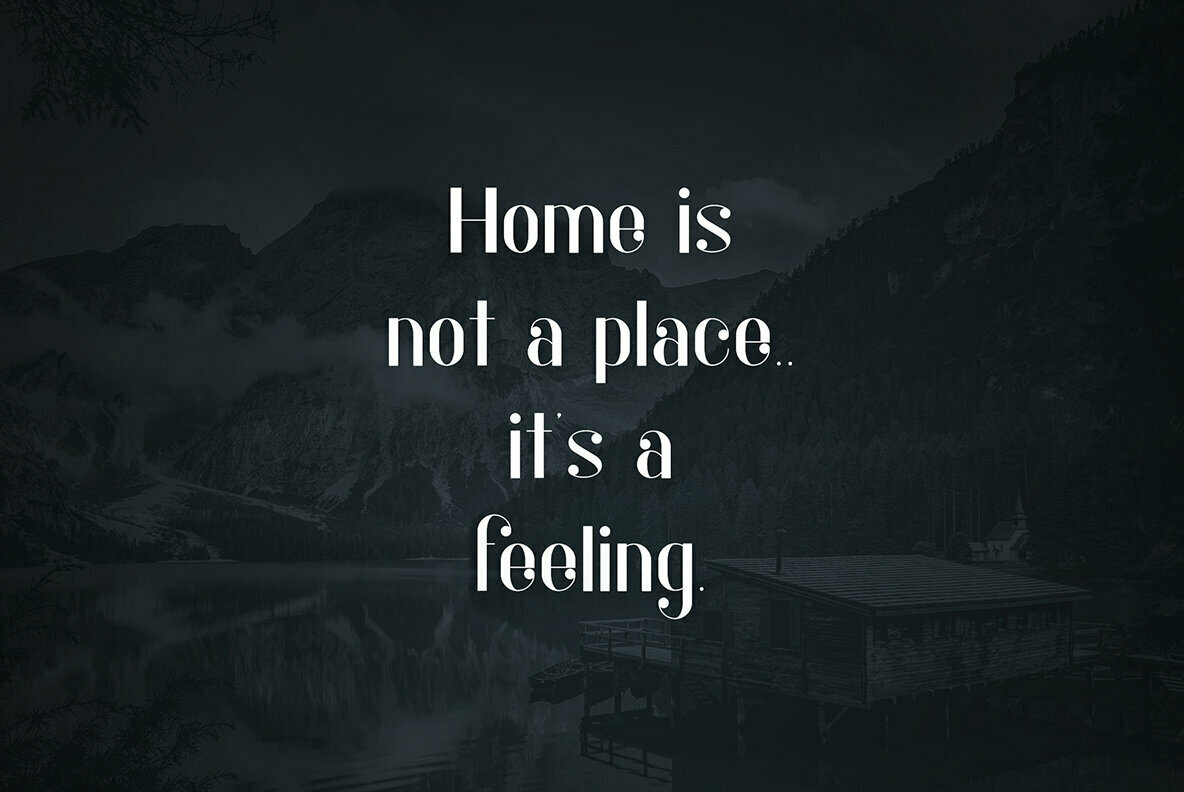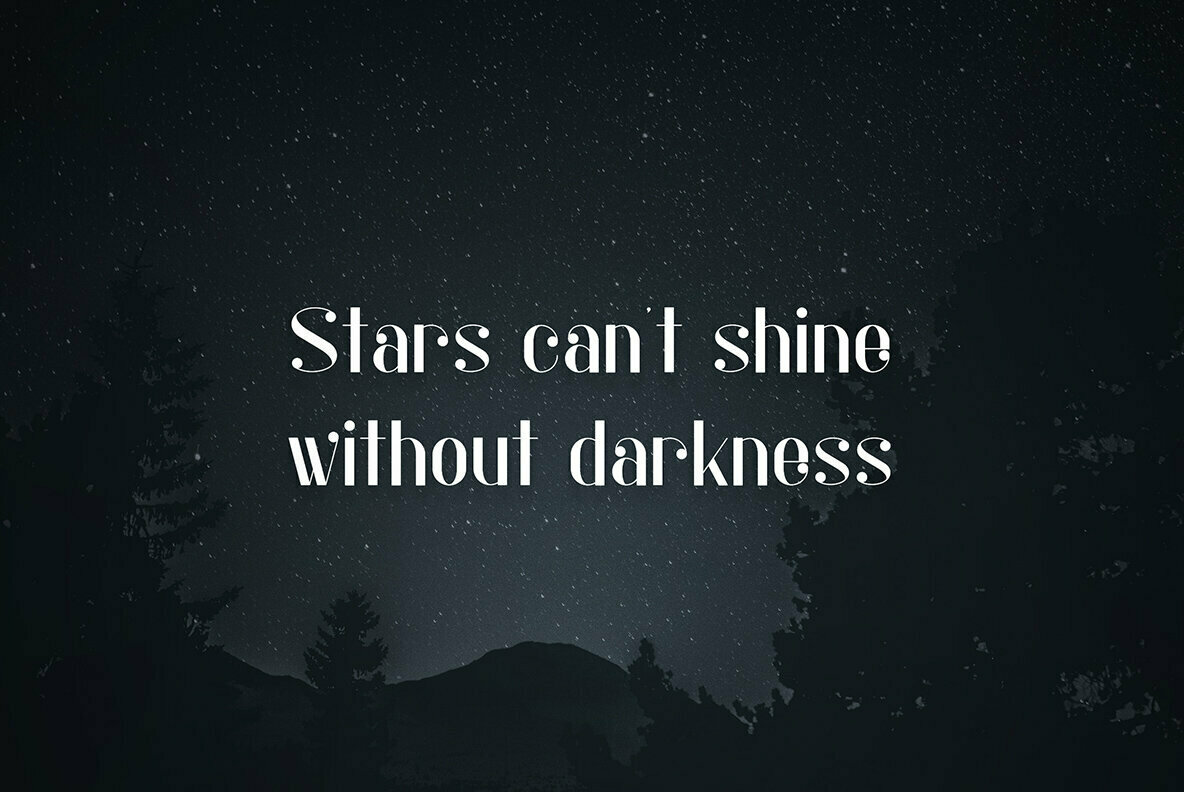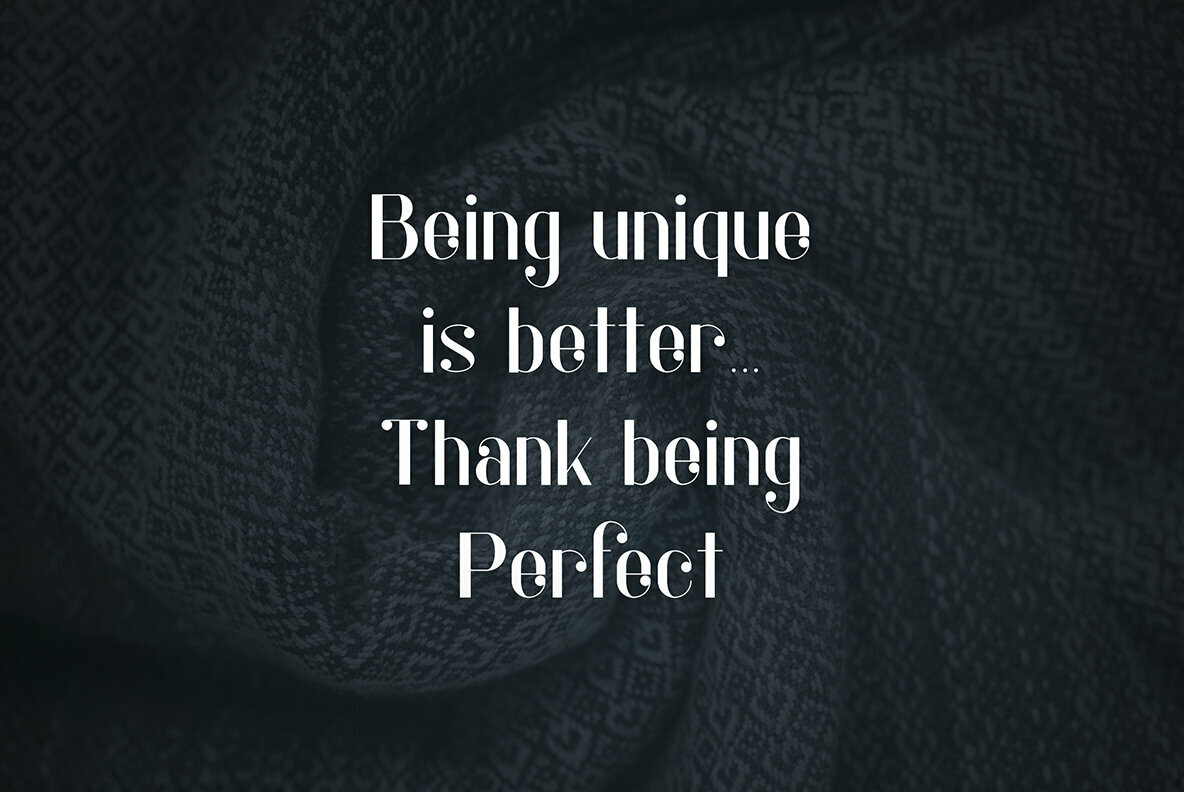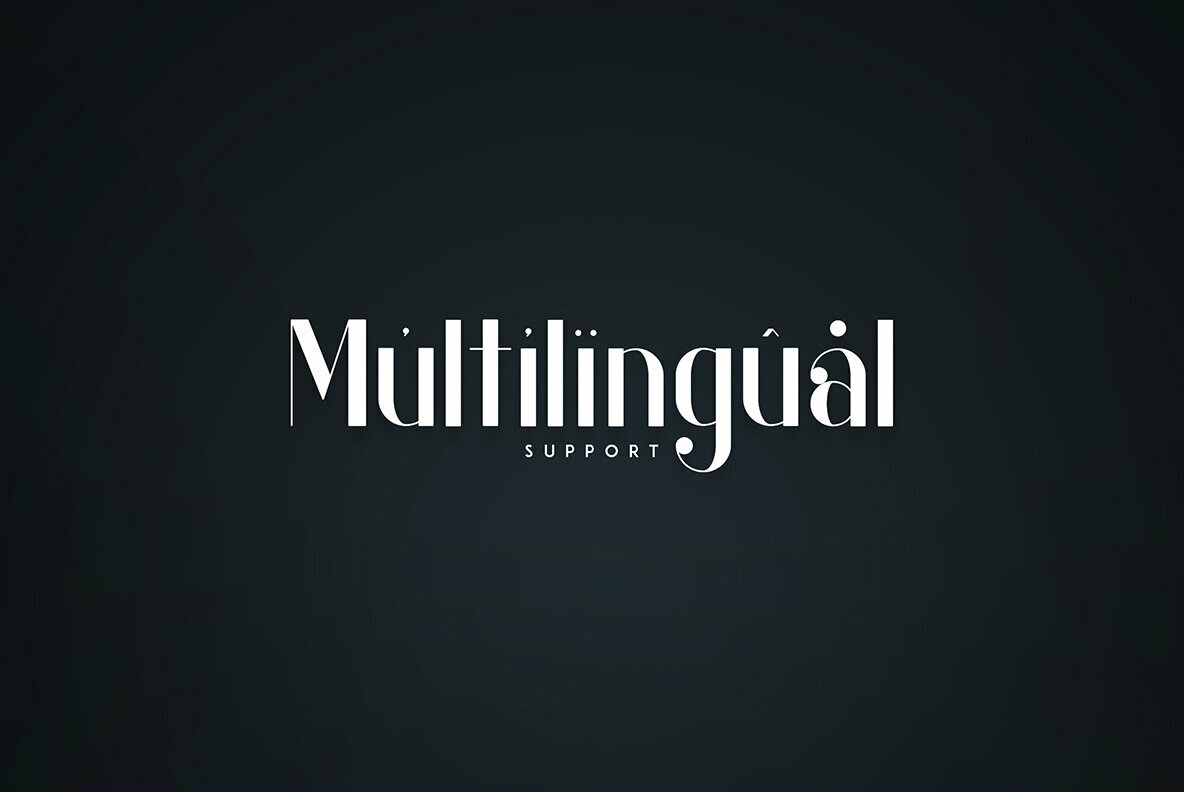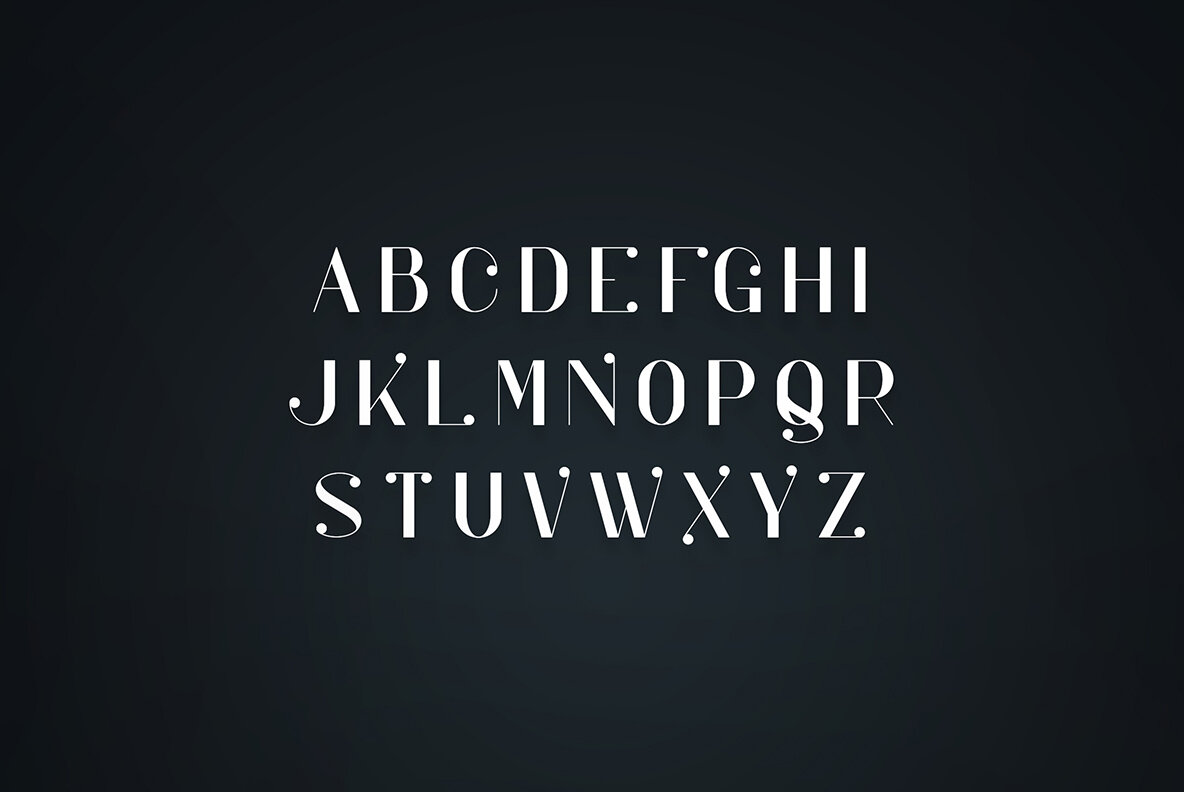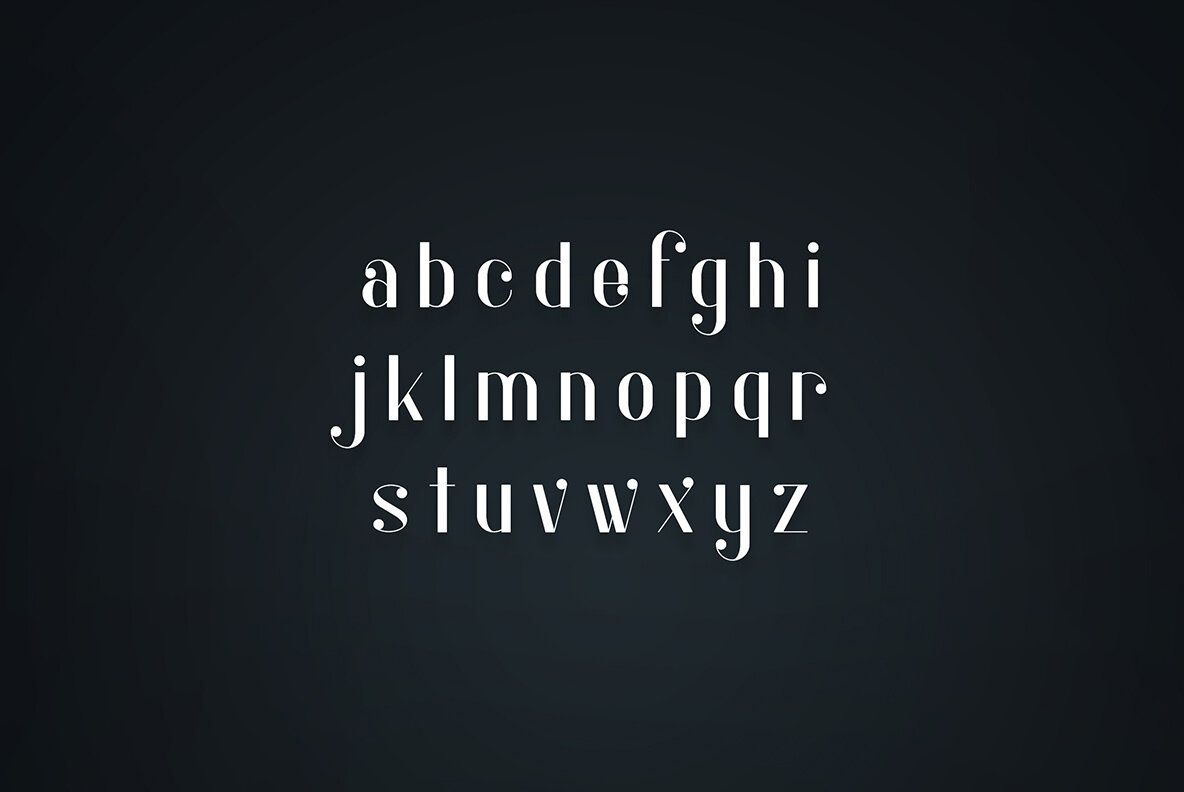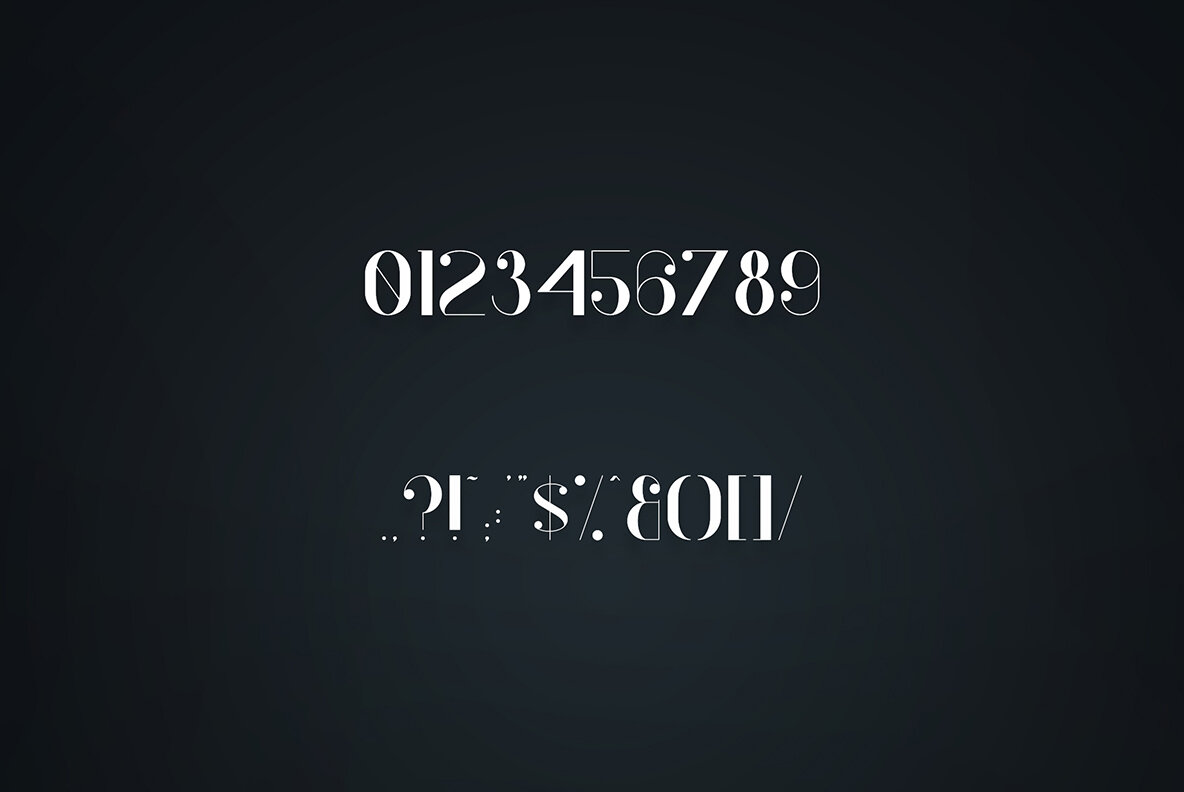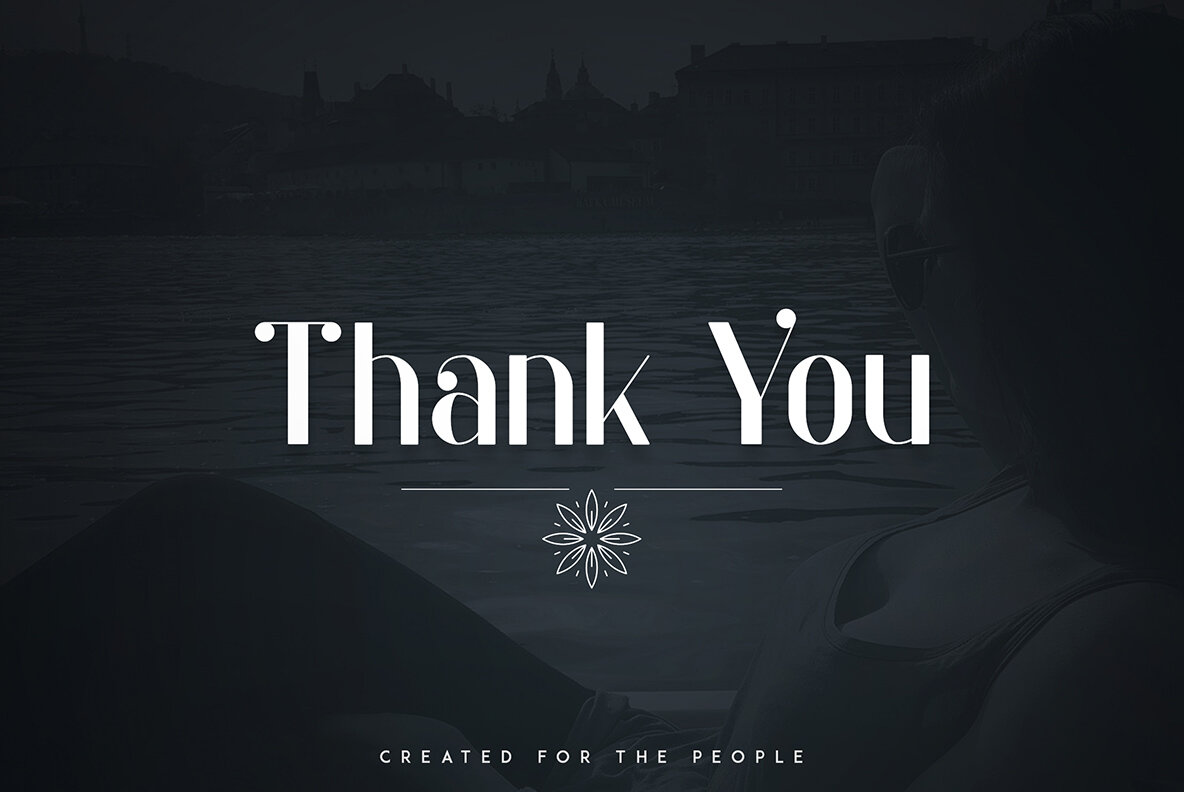
Kocka Font
Kocka
Discover the versatility embodied in Kocka, a modern display font offering extensive multilingual support. Its flexible nature caters to both large headline treatment and intricate small details, making it an indispensable asset in your design toolkit. Perfect for elevating branding projects, Kocka seamlessly adapts to a range of applications—from chic home-ware designs to refined product packaging, elegant wedding invitations, and captivating magazine headers. Its stylish presence as a text overlay complements any background image, enriching visual appeal with sophistication.Kocka: A Modern Display Font with Versatility